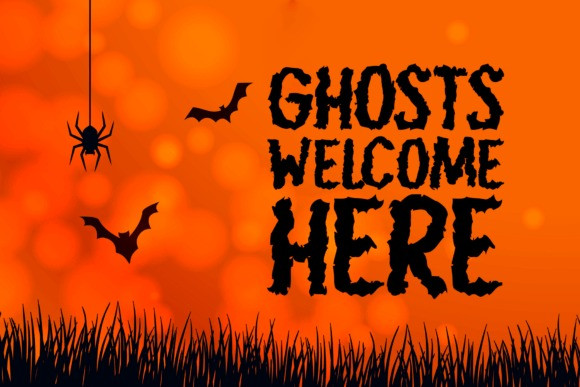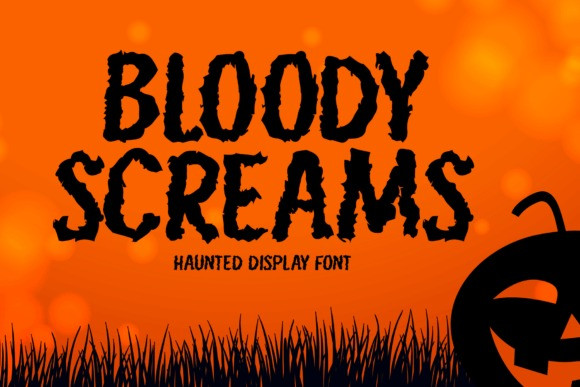
Bloody Screams Font
Bloody Screams Font is a distinctive display font crafted for spooky-themed projects. Whether you’re designing for Halloween events, edgy branding, or horror media, this typeface delivers a dramatic, eye-catching look with haunting style.